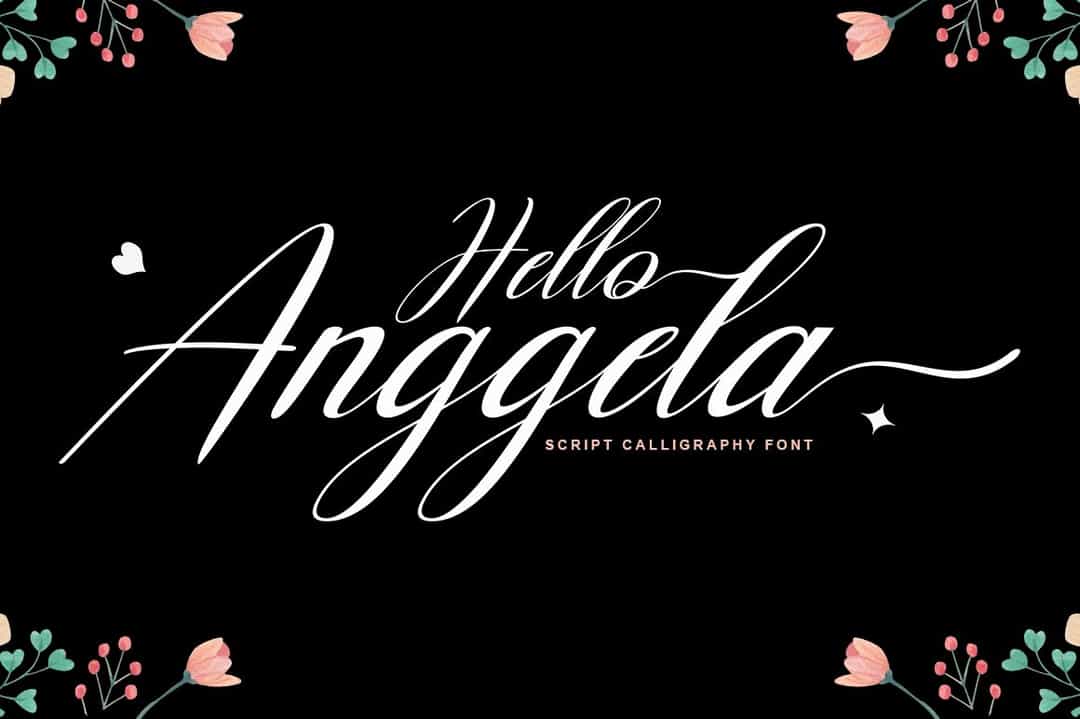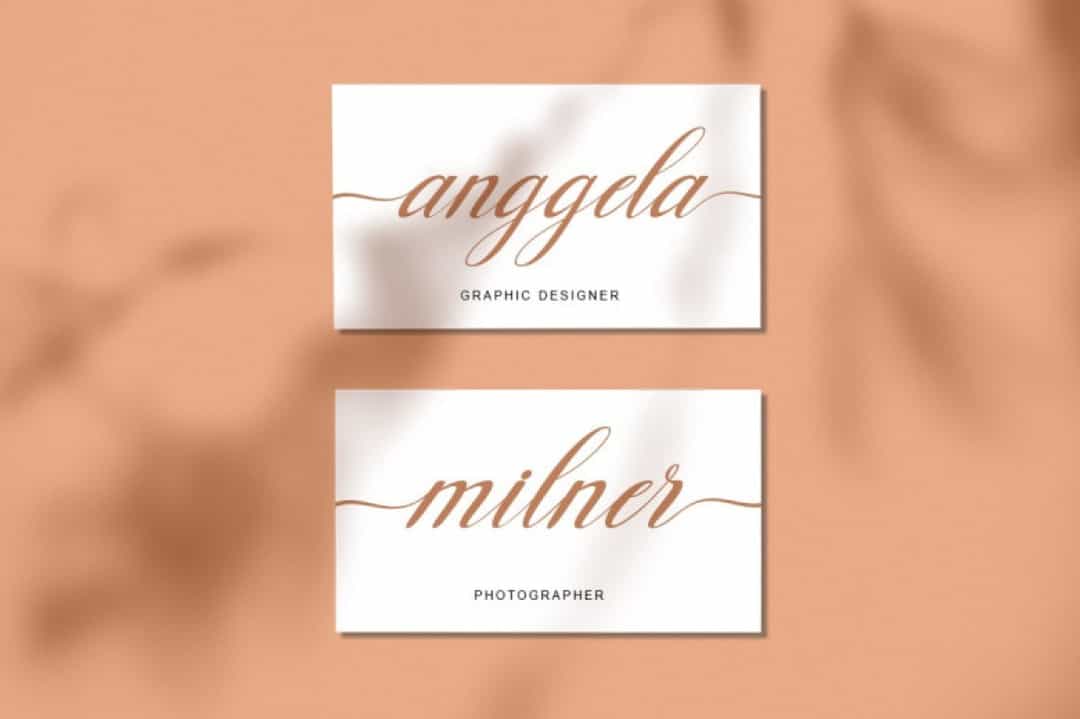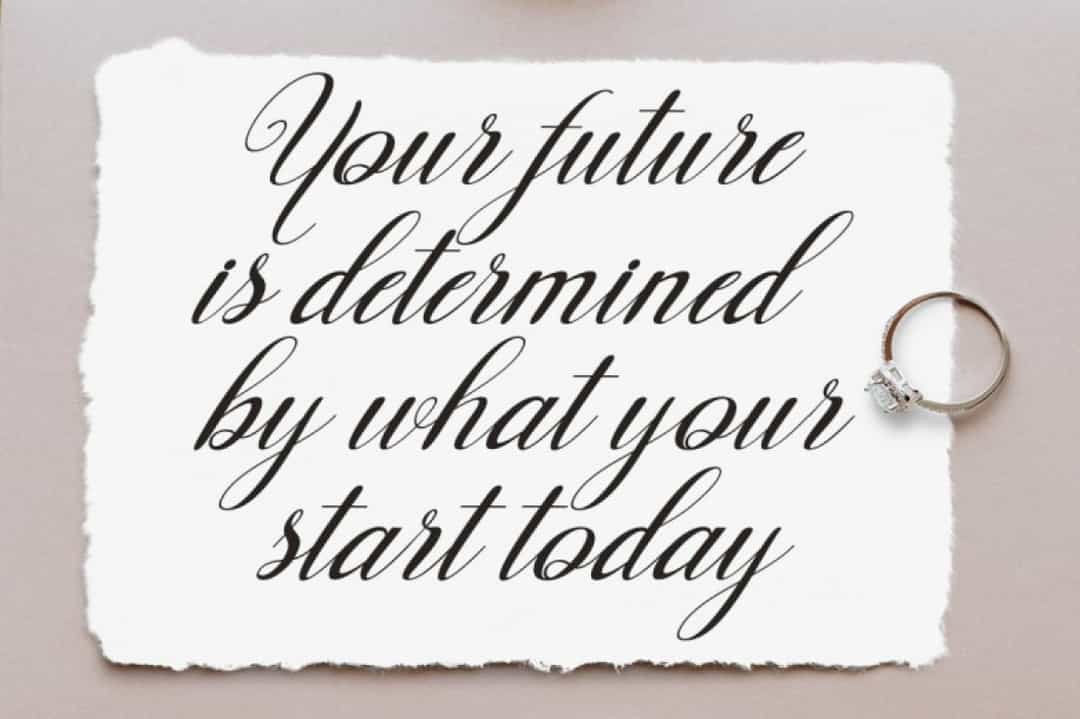
Hello Anggela is an eye-catching script with handwritten calligraphy style characters and an alluring dance-like base! Perfect for invitations such as greeting cards and business cards, posters, quotes and much more – Hello Anggela stands out!